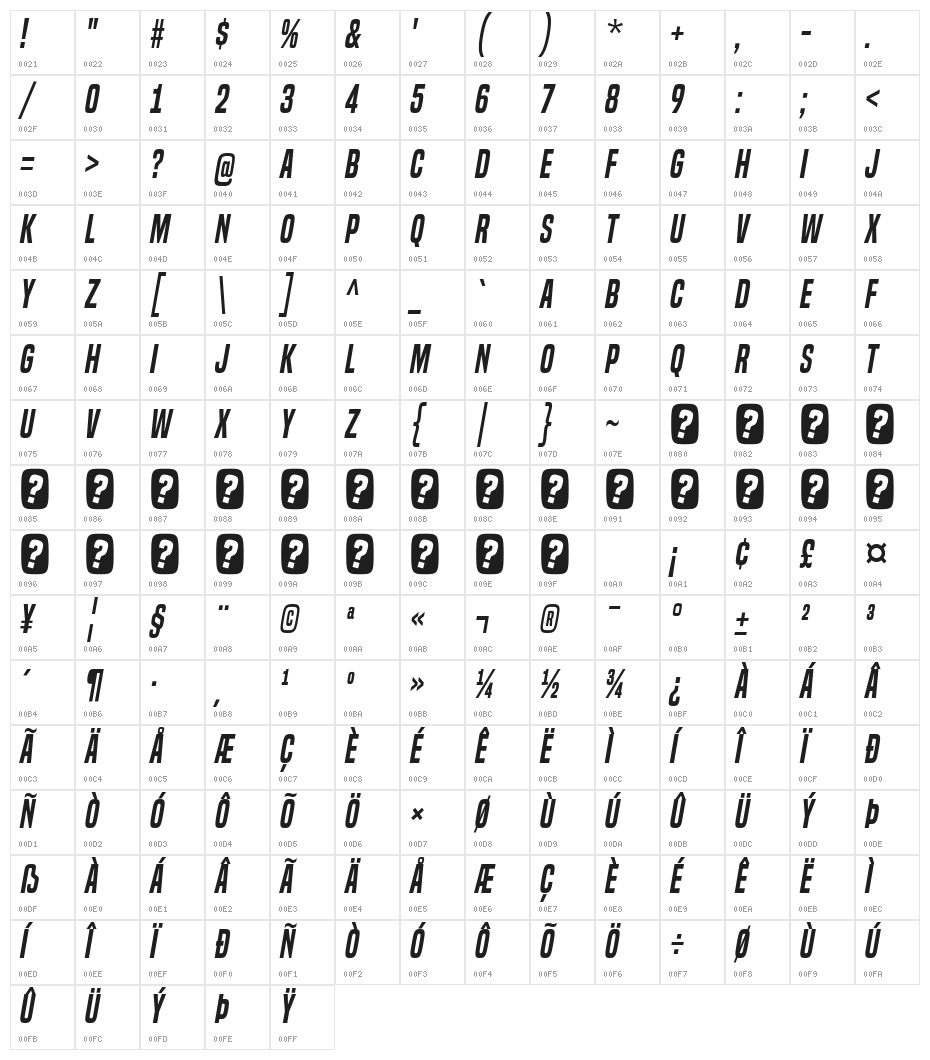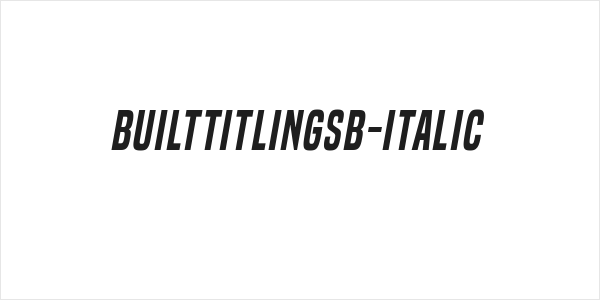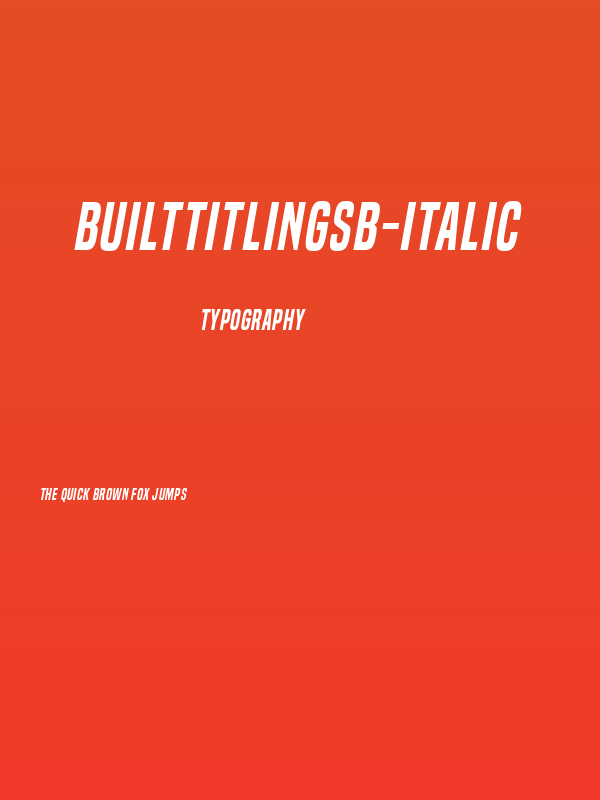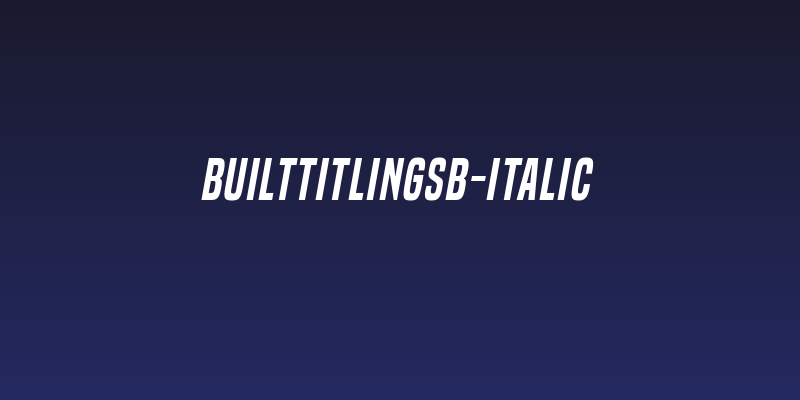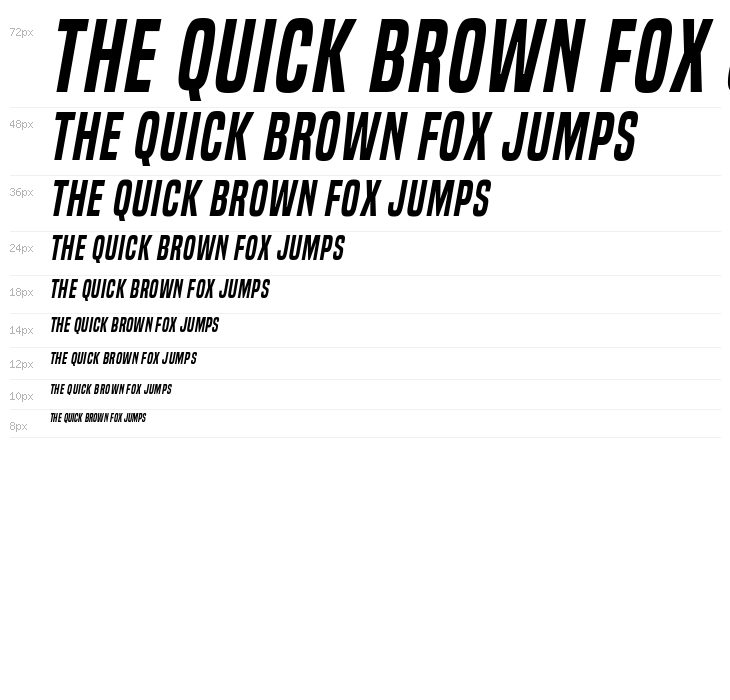
BuiltTitlingSb-Italic Font
BuiltTitlingSb-Italic Description
This font features a bold and italicized style with a strong presence, making it ideal for impactful headlines and titles. The characters are tall and slightly condensed, with a consistent stroke width that gives a uniform appearance. The italic slant adds a dynamic and modern touch, enhancing its visual appeal. The numerals and special characters maintain the same boldness and slant, ensuring cohesiveness across all elements. This font is well-suited for projects that require a bold statement, such as advertising, posters, and branding materials.
| Proposed Projects | Ideal for advertising, posters, branding, and impactful headlines. |